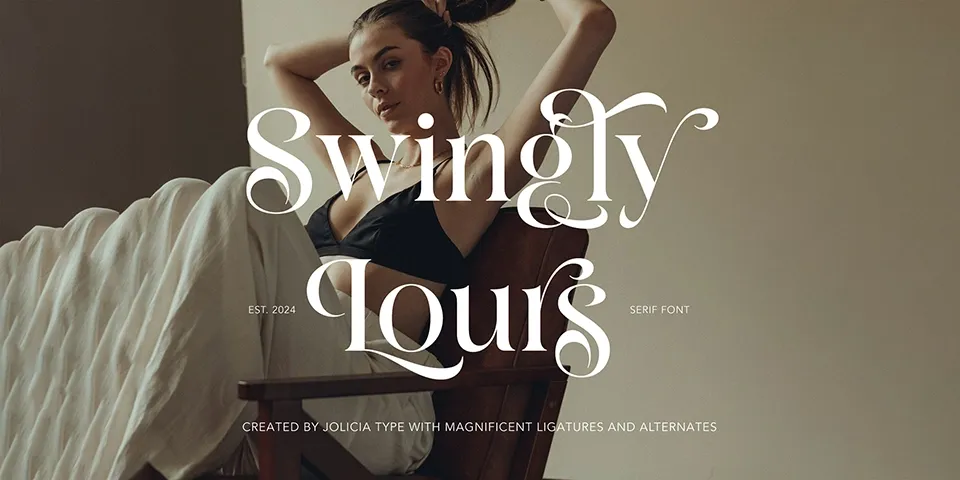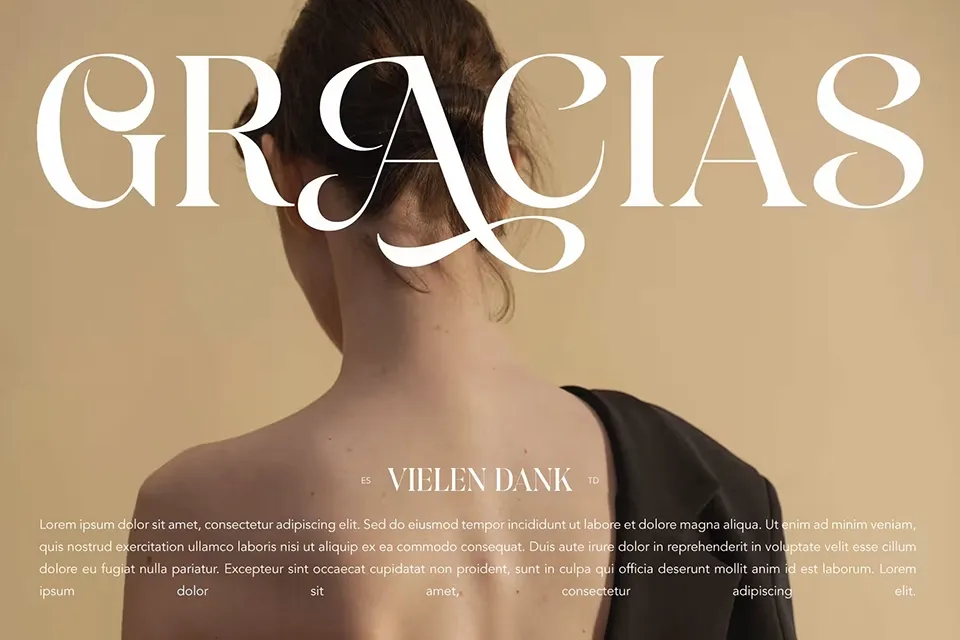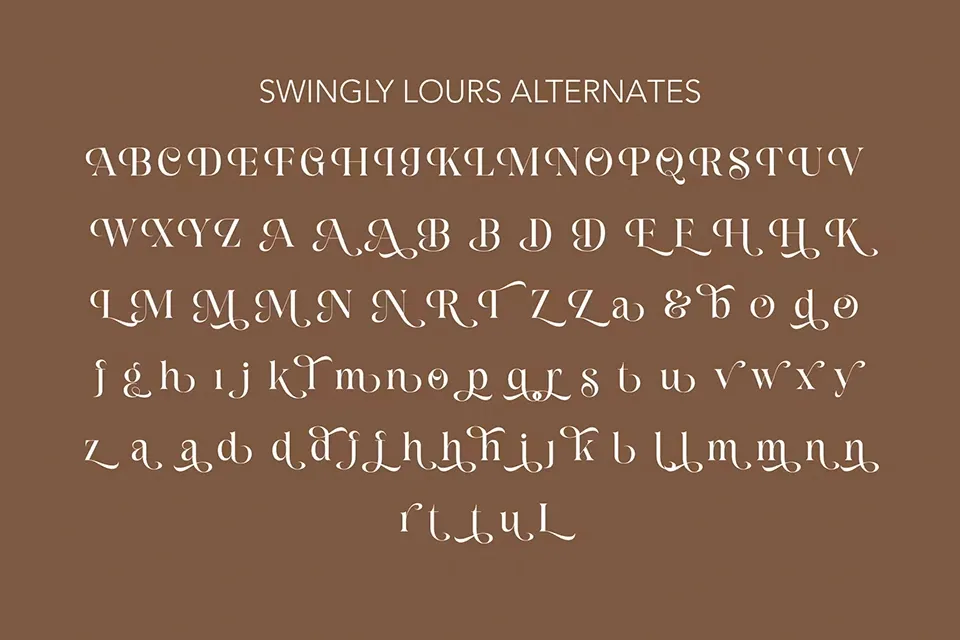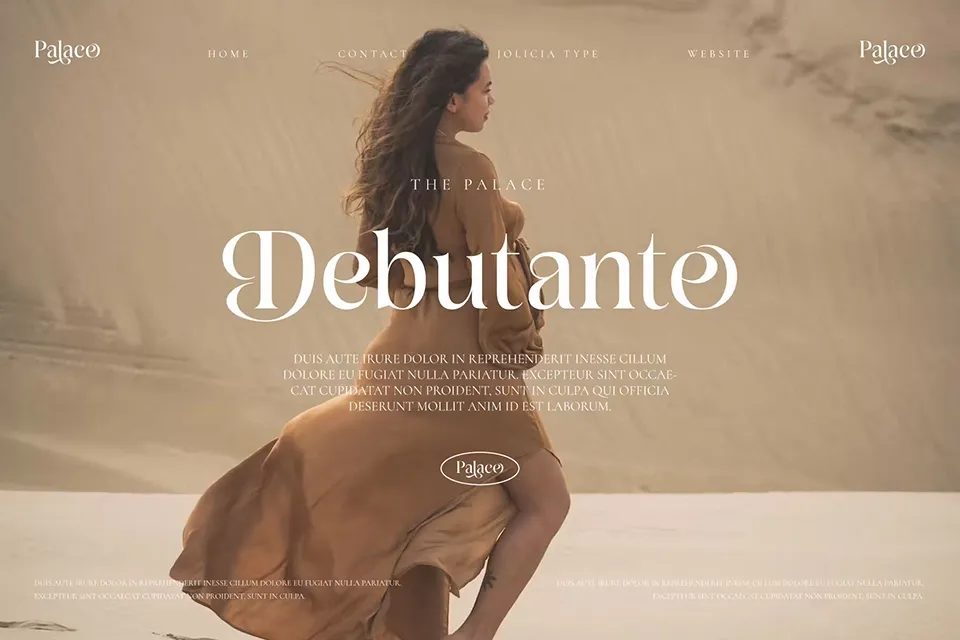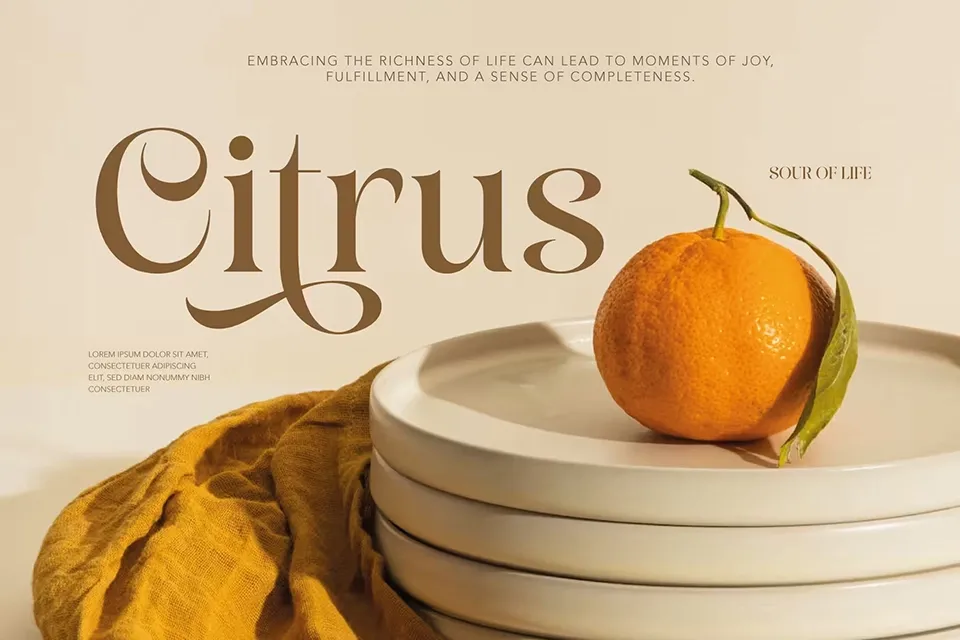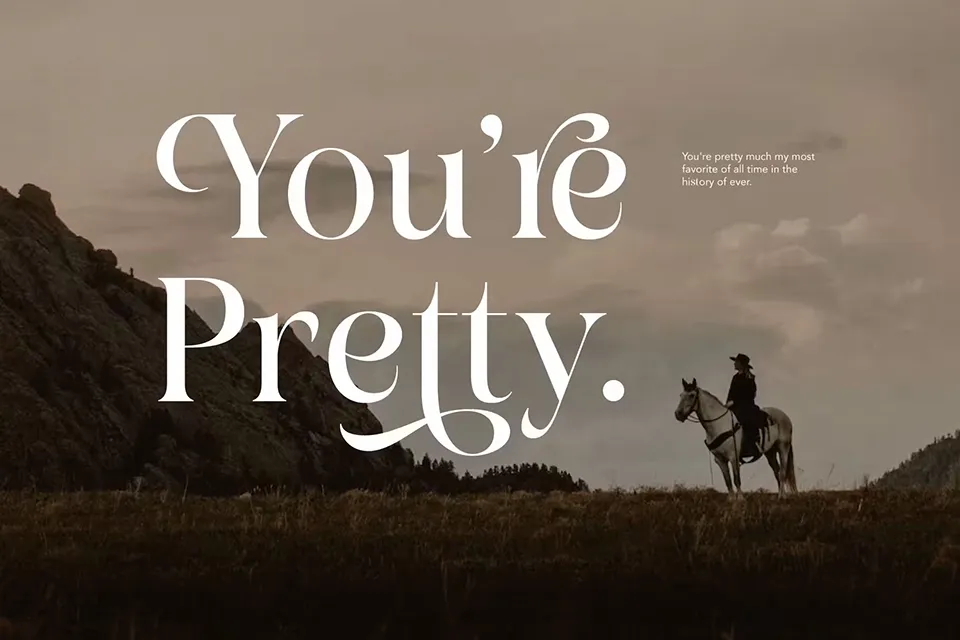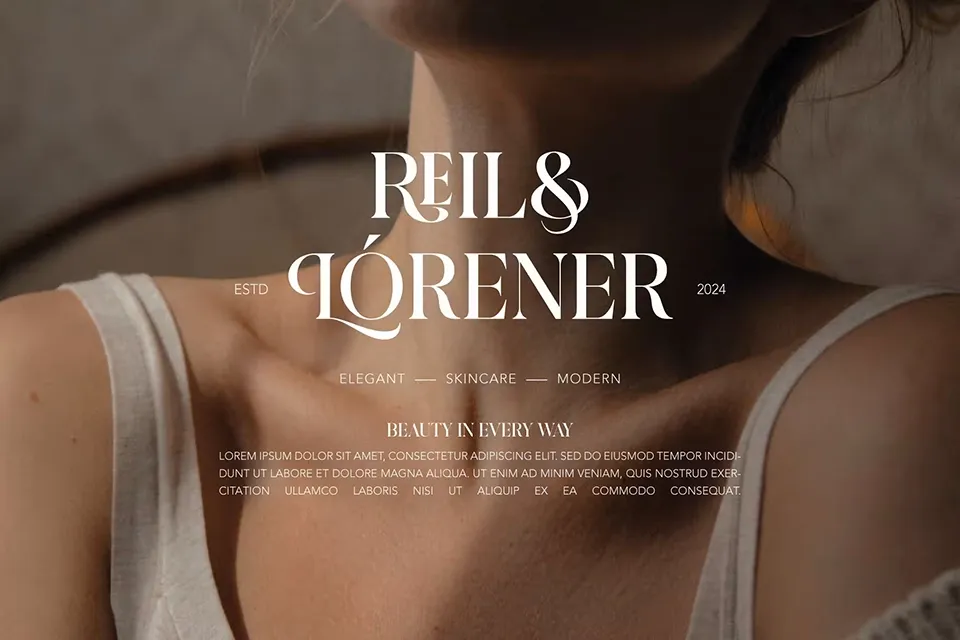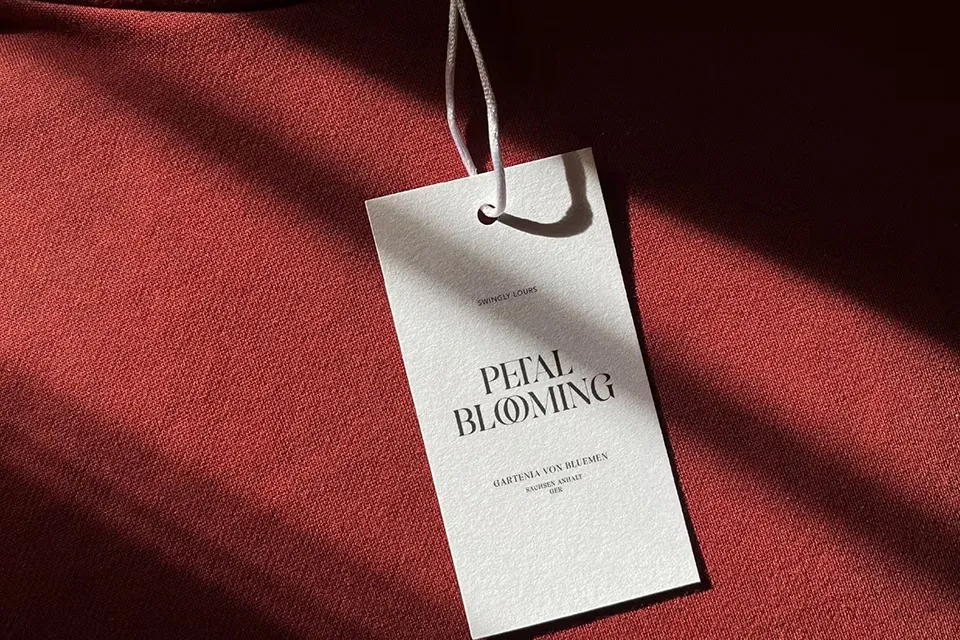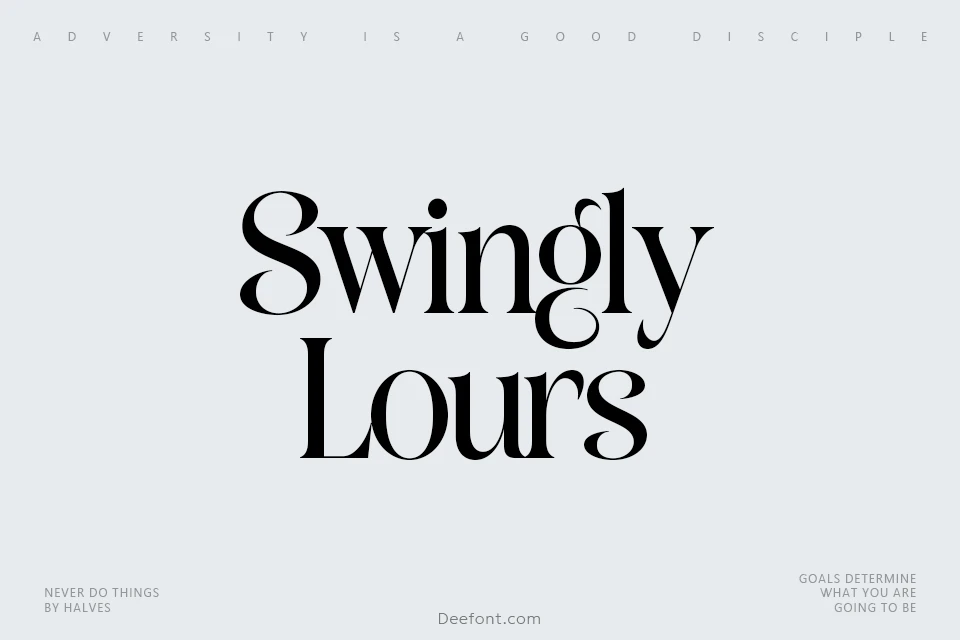
Swingly Lours Font
Swingly Lours Font is an elegant serif typeface crafted by Jolicia Type, known for its modern and classy design. This font is the epitome of serif elegance, enriched with magnificent ligatures and a plethora of alternates. It transforms typography into a visual symphony, striking a balance between classic sophistication and contemporary creativity. Swingly Lours is a versatile tool for crafting unique and captivating designs, and elevates projects with its charm, where every detail tells a story of timeless sophistication. It has elegant, flowing curves and a high contrast between thick and thin strokes.